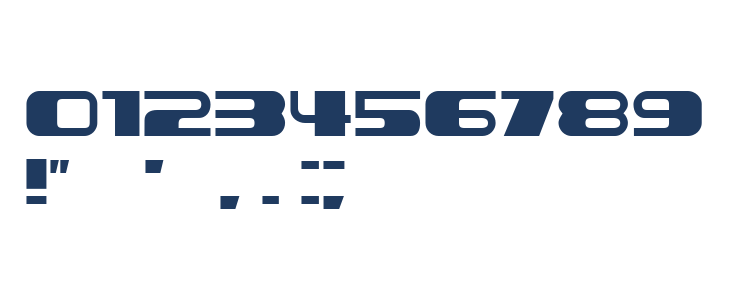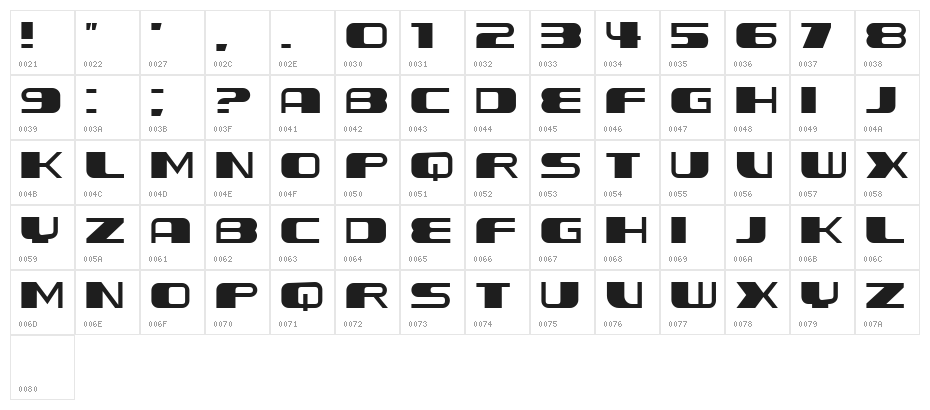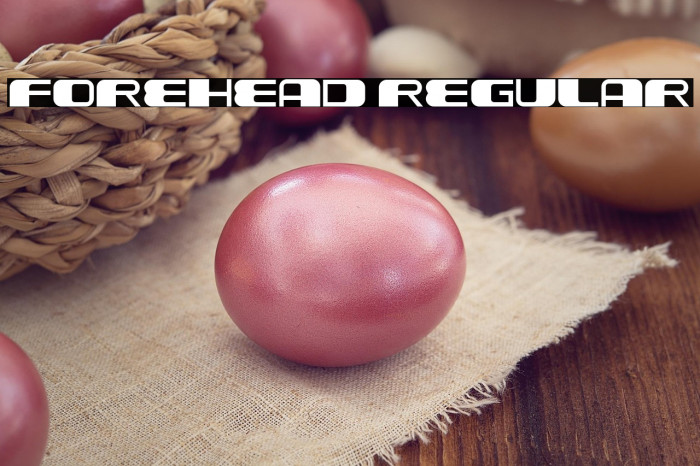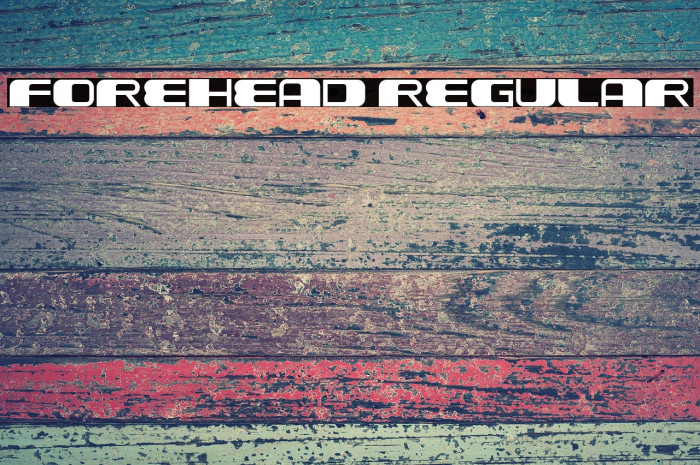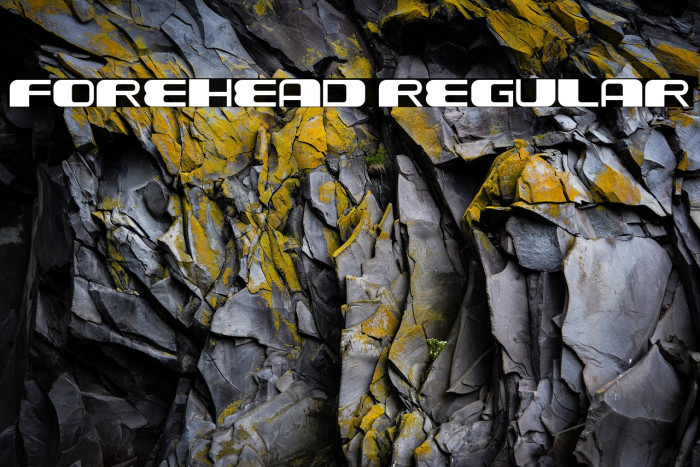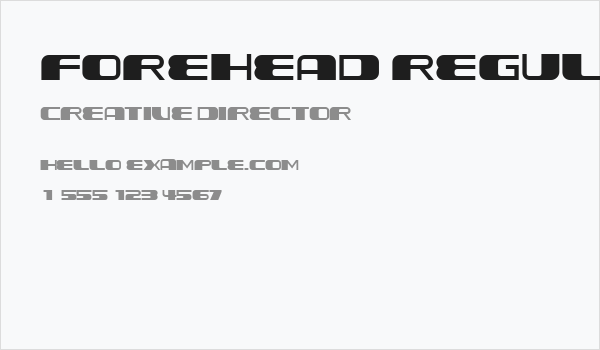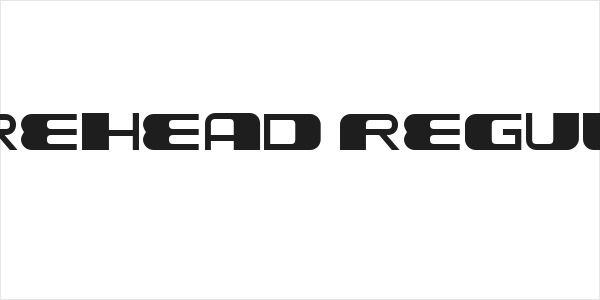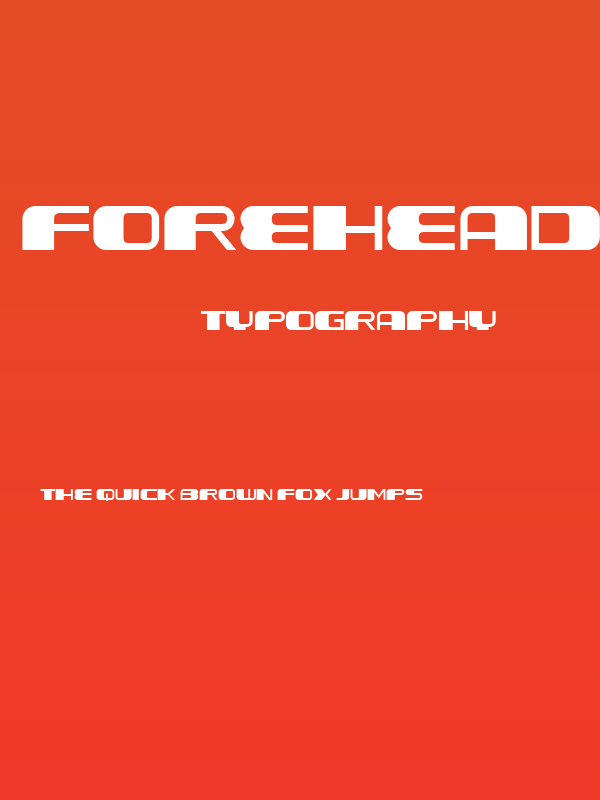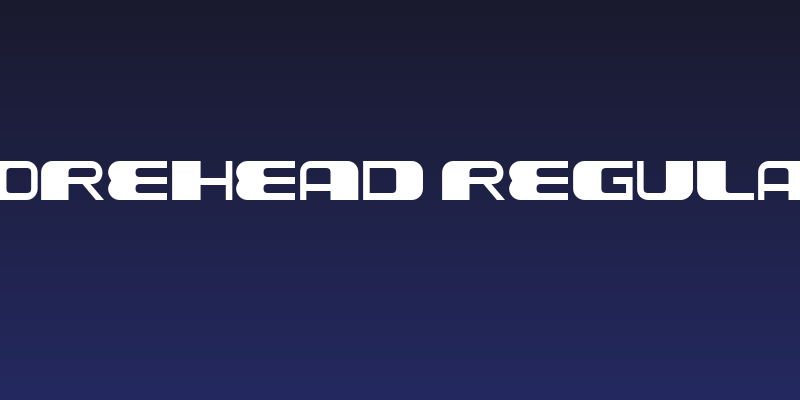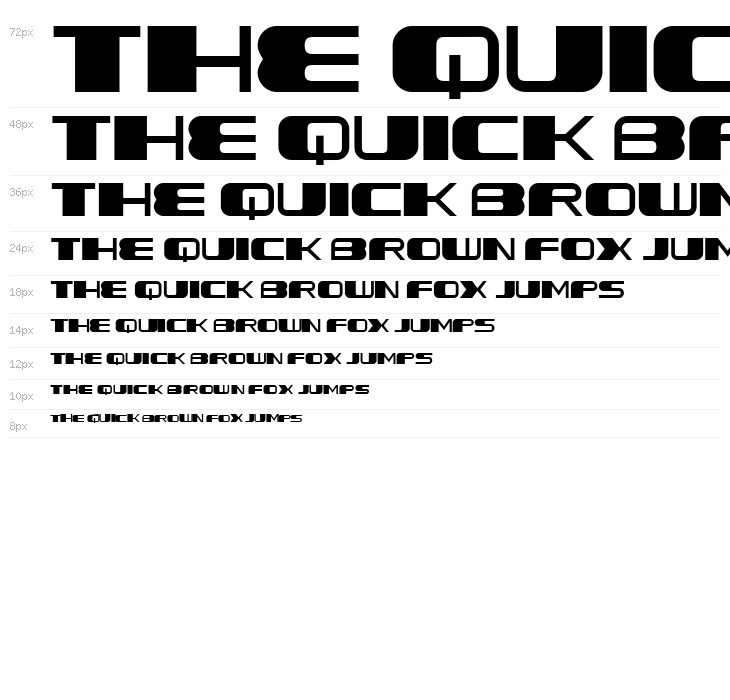
Forehead Regular Font
Forehead Regular Description
This font features a bold and futuristic design with a strong geometric influence. The characters are wide and have a distinct block-like appearance, giving them a modern and industrial feel. The uppercase letters are particularly striking, with unique cuts and angles that add to the font's dynamic look. The numbers and special characters maintain this bold style, ensuring consistency across all elements. The overall design is clean and impactful, making it suitable for projects that require a strong visual presence.
| Proposed Projects | Ideal for branding, posters, and headlines that require a modern and impactful look. |